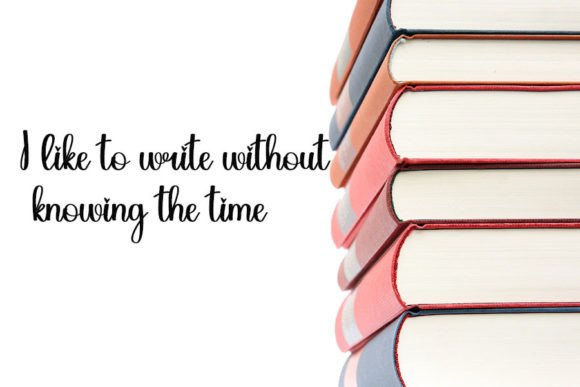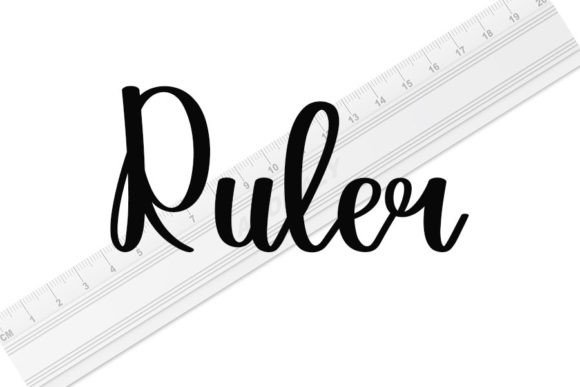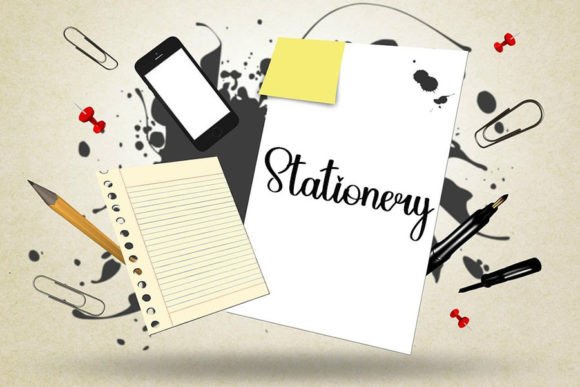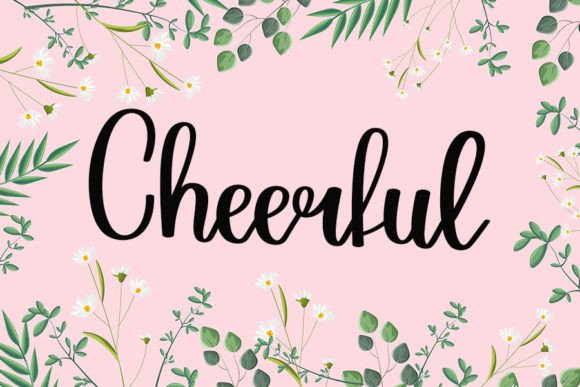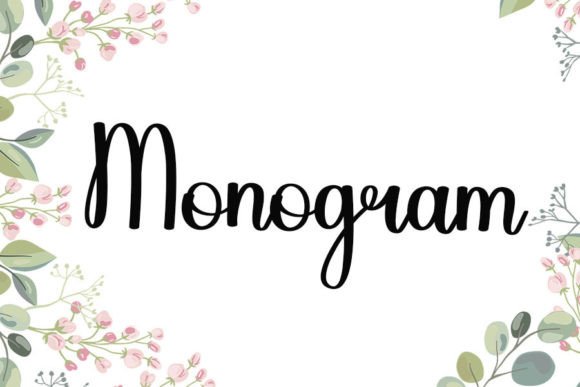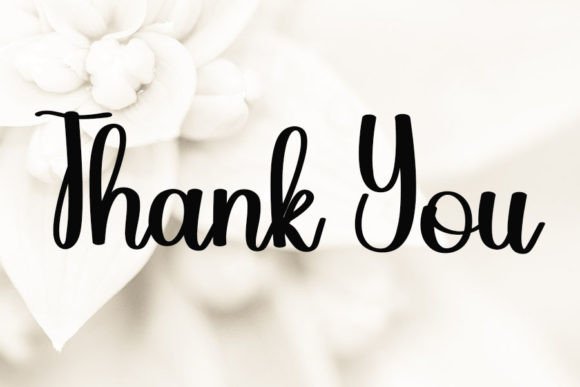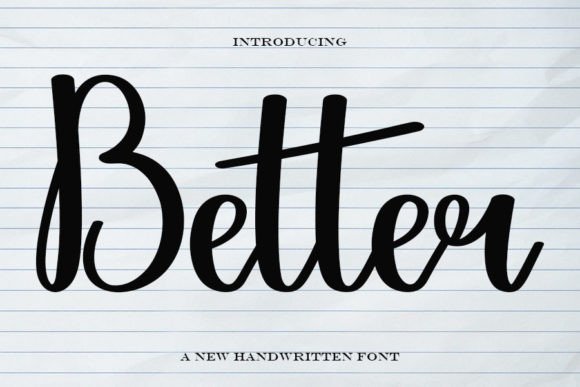
You know that moment when you’re working on a design project, and you just can’t seem to find the right font to bring it all together? The words on the page just don’t seem to be singing in harmony, and you feel like something is missing. Well, we’ve got the solution for you – the Better Font.
This stunning handwritten font is designed to add an elegant touch to your projects, making it perfect for a wide range of designs, from invitations and posters to branding and marketing materials. With its incredibly distinct and timeless style, the Better Font is sure to elevate your designs and make them truly stand out.
Designer Review: Better Font
Overall, I was quite impressed with Better Font during my review process. Here’s what stood out to me:
- ✨ Beautiful typography: The font’s clean lines, sleek curves, and perfect proportions made it a joy to work with.
- ✨ Excellent legibility: Even at smaller sizes, the text remained crisp and easy to read, making it perfect for body text.
- ✨ Versatility: Better Font comes in a range of weights, from light to bold, allowing for endless creative possibilities.
- ⚠️ Limited customization options: While the font itself is well-designed, the customization options for colors, sizes, and spacing are somewhat limited.
- ⚠️ Not ideal for headings: While Better Font works beautifully for body text, it falls short in larger sizes, making it less suitable for headings.
Overall, I’d say that Better Font is a solid choice for any design project that requires clean, readable text. While it may not be perfect, its strengths far outweigh its limitations, making it a great addition to any designer’s toolkit.
Use “Better Font” to add a professional touch to your designs. Experiment with different font styles and sizes to create visually appealing combinations. You can also use “Better Font” to create a consistent brand identity across your designs.
“Better Font” is ideal for use in logos, brochures, business cards, and other marketing materials. It’s also great for creating eye-catching headings and titles in presentations and documents.